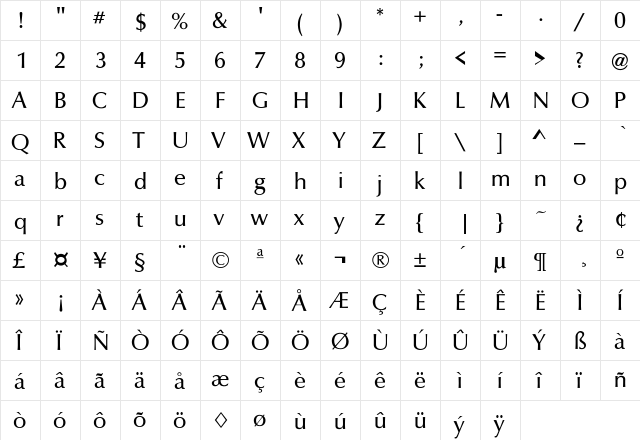
Lewellyn Regular Font Preview
Lewellyn Regular
Design Context for Lewellyn Typeface
Lewellyn offers clean, dependable letterforms without strong stylistic allegiance, making it a practical choice for designers who need flexibility.